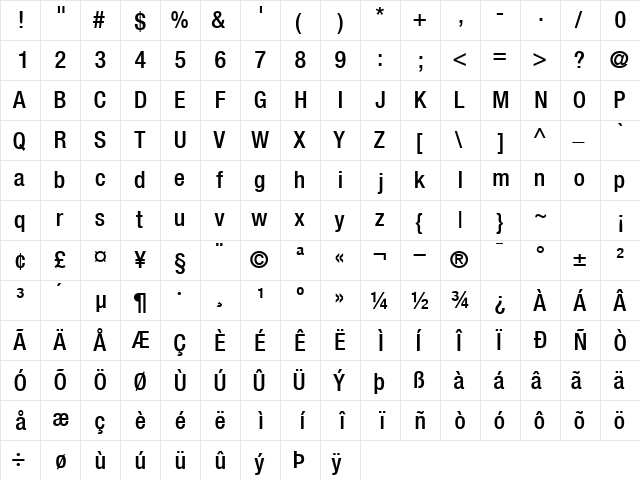
ContextRepriseMediumCondSSK Regular
Design Context for ContextRepriseMediumCondSSK Typeface
ContextRepriseMediumCondSSK takes a measured approach to typography — its balanced proportions and neutral character make it a reliable workhorse for both digital and print work. The condensed width makes it efficient for tight spaces without sacrificing legibility.
Pro Tip: Use ContextRepriseMediumCondSSK in both headline and body roles to test its range before committing to a single application.